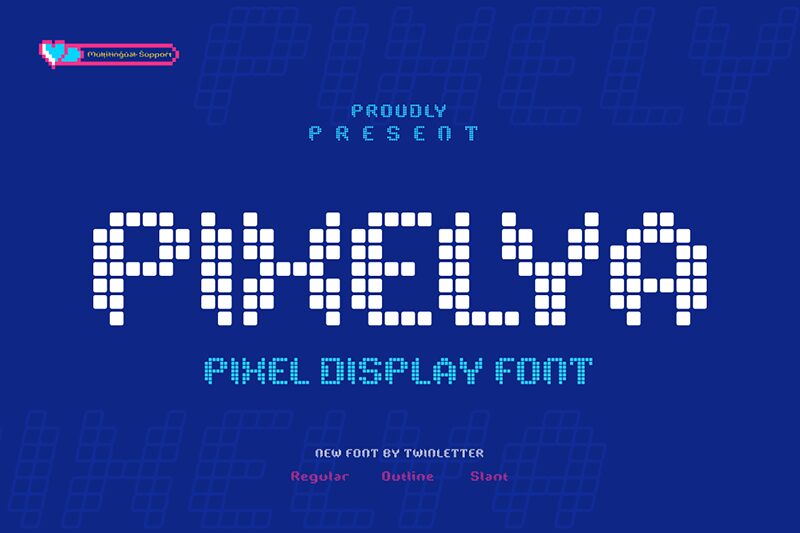
Pixelya font by Twinletter is a bold display typeface with a digital aesthetic. This tech-inspired free font has a retro pixelated feel with geometric shapes taking center stage and each character having a special personality. While known for their straightforward look, these classic designs possess powerful and unique traits.
Use this font in games interface design, clothing tags, website user interfaces, business cards, or menu layout design. Create inspiring magazine covers, attention-grabbing blog headers, posters that stand out of the crowd, and even packages that attract consumers. Other ideas include store signage or wall mural graphics.